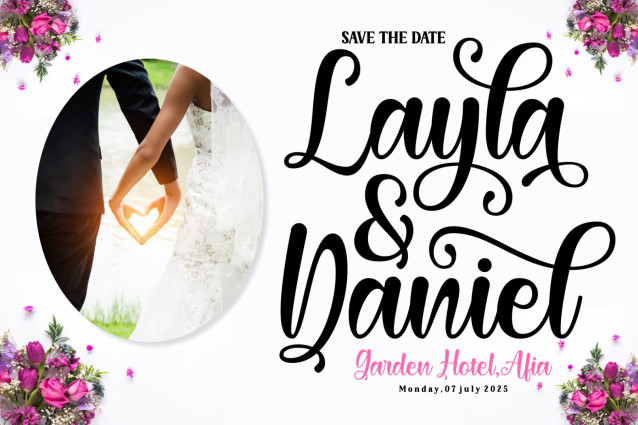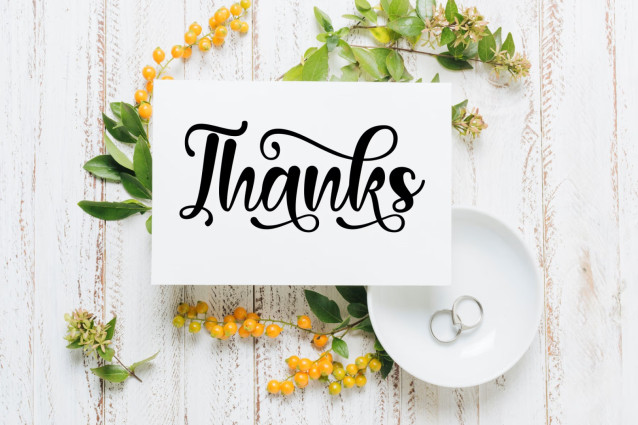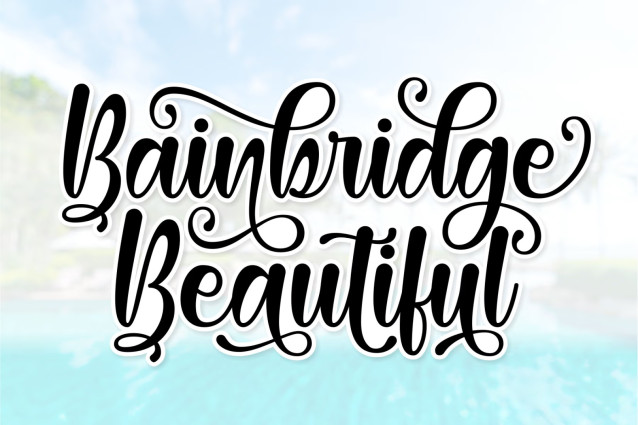
Bainbridge Beautiful Font
Bainbridge Beautiful is a distinct and graceful script font. Fall for its ravishing style and use it to create gorgeous designs. This font is PUA encoded which means you can access all glyphs and swashes with ease!